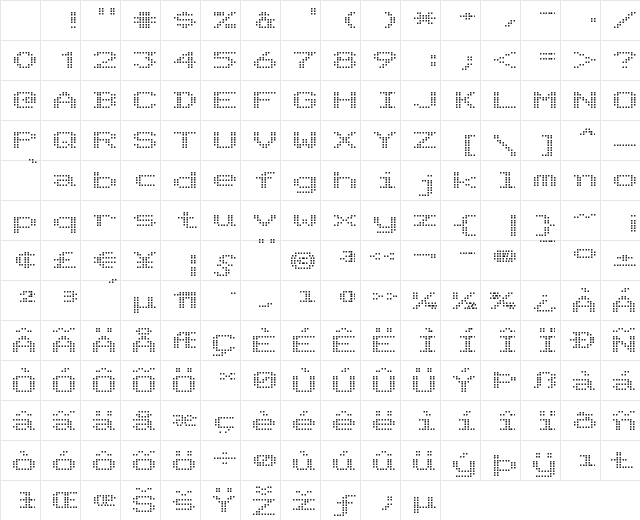
Complete Telidon Ex Regular glyph index. Displaying only characters natively supported by Telidon Ex Regular font.
Telidon Ex is a composed and adaptable typeface that performs quietly and consistently across a wide range of design contexts.